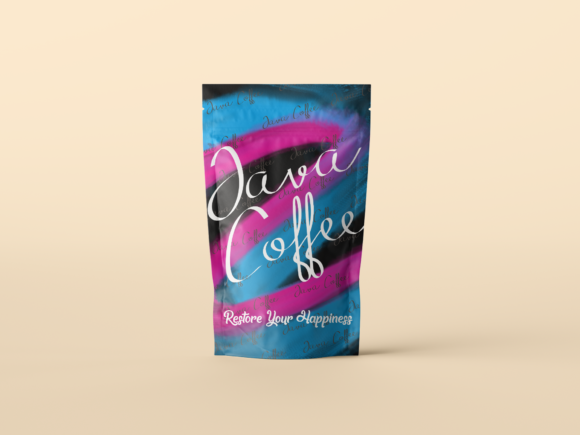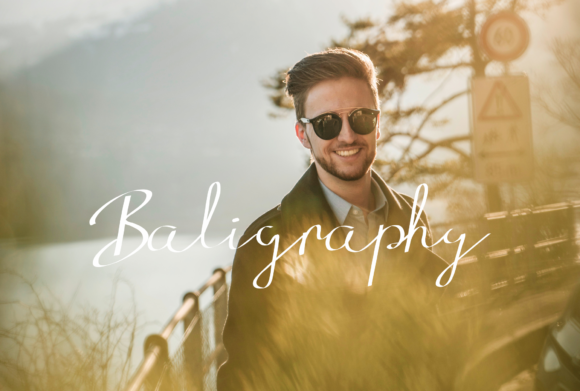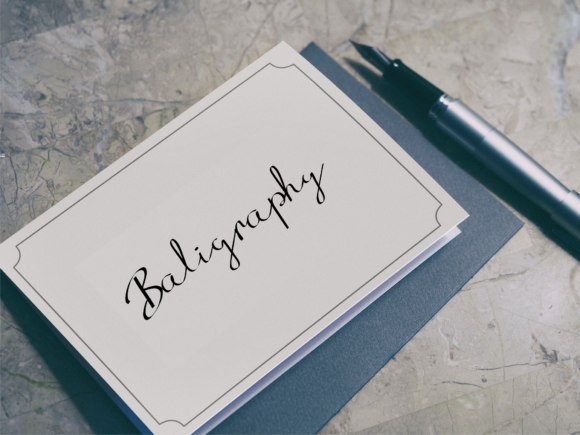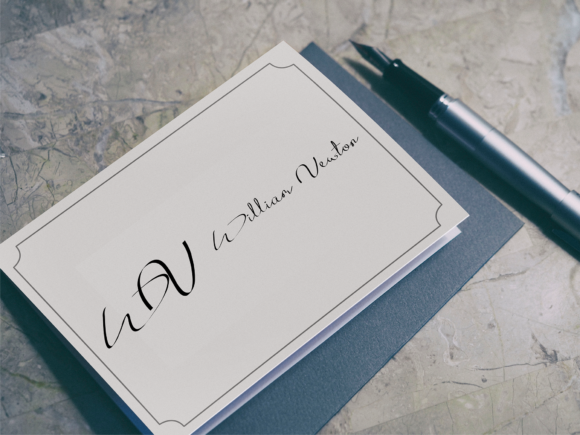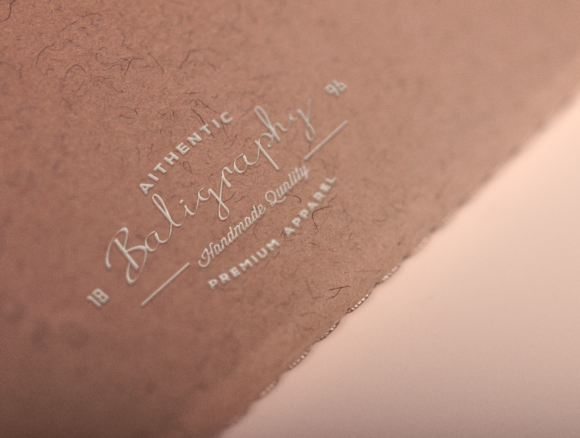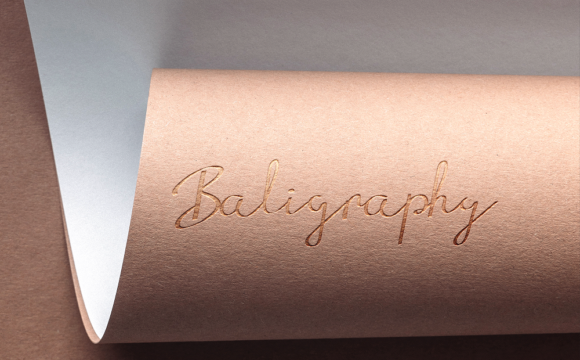
The Perfect Touch: Elevate Your Creative Projects with Baligraphy Font
Have you ever stared at a blank canvas, wondering how to bring your vision to life? We’ve all been there – searching for that elusive spark that sets our creative projects ablaze. For designers, the right font can be just that missing piece. It’s the difference between a good design and a great one.
Enter the Baligraphy Font – a lovely, light, and elegant handwritten font that effortlessly elevates any creative project with its sophisticated charm. Whether you’re working on a wedding invitation, a branding campaign, or a social media post, the Baligraphy Font is the perfect addition to give your design that extra oomph.
As a valuable asset for designers, the Baligraphy Font offers a unique blend of elegance and approachability, making it an ideal choice for projects that require a touch of sophistication and whimsy. With its versatility and charm, the Baligraphy Font is sure to become a go-to favorite in your design arsenal.
Baligraphy Font Key Features
- Font Family: Baligraphy, with a range of weights and styles available, including Regular, Bold, Italic, and Bold Italic.
- Unique Characteristics: Baligraphy features a unique blend of traditional and modern calligraphic elements, with elegant swashes and flourishes that add a touch of sophistication to any text.
- Language Support: Supports a wide range of languages, including Latin, Cyrillic, and Greek scripts, making it a versatile font for international designs.
Designer Review: Baligraphy Font
Overall, I’m impressed with the Baligraphy font, but as with any typeface, there are some things that shine and some areas that need improvement.
- The elegant, cursive design is perfect for creating a sophisticated, high-end feel in branding and typography projects.
- The font is highly legible, even at smaller font sizes, making it suitable for body text and other areas where readability is crucial.
- The Baligraphy font offers a range of weights and styles, giving designers the flexibility to customize their designs to suit their needs.
- The font may not be the best choice for digital displays or screens, as it can appear slightly pixelated or distorted at certain resolutions.
- The Baligraphy font is not optimized for languages with non-Latin scripts, which may limit its use in international or multilingual projects.
- The font’s complexity may make it difficult to use in situations where a more straightforward, sans-serif font is preferred.
The Baligraphy font is a beautiful, elegant typeface that excels in certain situations, but may not be the best choice for every project. With some careful consideration and planning, however, it can be a valuable addition to any designer’s toolkit.
For the most effective use of Baligraphy font, use it for titles, headings, and other prominent text elements. It pairs well with elegant and modern designs. To get the most out of it, experiment with different font sizes, colors, and combinations with other fonts.
Common use cases for Baligraphy font include wedding invitations, business cards, and marketing materials that require a sophisticated and stylish look.
Alternatives to Baligraphy Font for Designers
Playfair Display is an elegant and luxurious serif font, perfect for creating high-end designs, such as luxury branding, invitations, and magazine headlines.
Compared to Baligraphy Font, Playfair Display has a more refined and sophisticated feel, with a wider range of weights and styles available.
Can I customize Baligraphy Font to fit my specific needs?
Yes, Baligraphy Font is a highly customizable font that allows you to adjust various settings, such as font size, line spacing, and letter spacing. You can also use font editing software, such as FontForge or Glyphs, to make more advanced customizations, including modifying individual glyphs and creating custom ligatures.